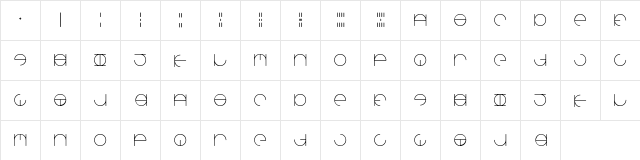
Aroundabout Regular
Design Context for Aroundabout Typeface
Aroundabout softens its letterforms with rounded terminals, giving it an approachable, friendly quality that works well in consumer-facing and digital contexts.
Well-suited to UI design, mobile interfaces, and any brand that wants approachability without sacrificing clarity.
Font Pairing: Pairs well with a rounded or humanist sans for body copy, maintaining the friendly tone without relying on Aroundabout to carry extended reading.
Pro Tip: Use Aroundabout for UI elements, app interfaces, and anywhere a friendly, approachable tone needs to be maintained without sacrificing clarity.